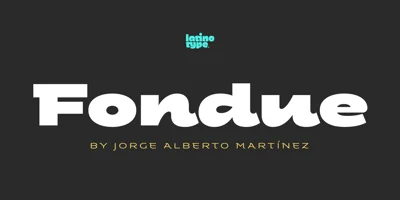
Fondue Font
Fondue Font is perfect for food truck branding, restaurant menus, gourmet food packaging, culinary blogs, cheese shop signage, artisan food labels, cozy cafe logos, comfort food advertising, and warm hospitality communications. This delightful typeface brings appetizing charm and culinary warmth to projects requiring food-focused typography with delicious visual appeal and comforting atmosphere.
What makes Fondue Font exciting is its melted charm that captures the irresistible comfort and warmth of shared culinary experiences with playful sophistication and appetizing appeal. The font features flowing letterforms with organic curves and smooth connections that evoke the creamy richness of melted cheese and comfort food traditions. Its appetizing character and inviting personality make it irresistible for food brands seeking typography that stimulates appetite while creating emotional connections through delicious visual storytelling and culinary authenticity.
The Fondue Font family includes appetizing weights and culinary styles: Light, Regular, Medium, Bold, and dripping variations with food-inspired alternates and decorative elements. Each weight maintains the font's delicious character while offering designers creative flexibility for food branding and hospitality design applications requiring appetizing visual impact and culinary authenticity.
Whether you're designing for restaurants or food businesses, Fondue Font offers designers a mouth-watering, food-focused typeface solution. The font's culinary aesthetics and appetizing styling make it ideal for gourmet restaurants, artisan food producers, specialty food stores, and hospitality venues. Its inviting presence ensures your message communicates deliciousness and warmth while maintaining excellent readability. The comprehensive character set includes food symbols and culinary decorations, making it perfect for creating appetizing headlines and brand identities that celebrate culinary traditions and establish memorable connections with food lovers seeking authentic, comforting dining experiences and gourmet culinary adventures.